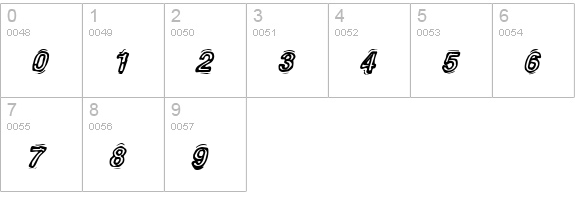
Motherlode Stripped AOE Italic is a distinctive, italic variant in the Motherlode typeface family \xE2\x80\x94 well suited to design and typography projects.
Motherlode Stripped AOE Italic font is a stunning display typeface that exudes elegance and sophistication. Its sleek lines and modern aesthetic make it a perfect choice for projects that require a touch of refinement. The italicized version of this font adds a sense of dynamism and flair, making it ideal for creative designs and branding materials. The best part? Motherlode Stripped AOE Italic font is completely free to download at FontsMarket.com. This means you can elevate your projects with this beautiful typeface without spending a dime. Don't miss out on this opportunity to enhance your designs with a premium font that won't cost you a penny. Download Motherlode Stripped AOE Italic font today and see the difference it can make in your work!